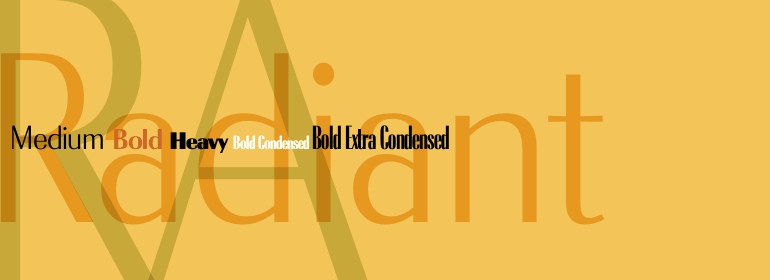
Radiant Font
Radiant Font excels in energy company branding, solar power system marketing, illumination design studios, bright lifestyle magazines, positive psychology centers, vitamin supplement packaging, light therapy clinics, optimistic wellness programs, brilliant diamond jewelry displays, and luminous beauty product campaigns. This brilliant typeface brings radiant energy and luminous positivity to any light-focused design project.
Radiant Font is exciting because it captures the life-giving power and uplifting energy of pure radiance, featuring luminous letterforms that seem to glow with inner light and convey the transformative power of positive energy that brightens everything it touches. Its brilliant character instantly elevates mood, inspires optimism, and celebrates the radiant beauty that emerges when we embrace life's brightest possibilities.
Radiant Font family includes Light, Regular, Medium, Bold, and Black weights with luminous alternates, brilliant flourishes, glowing ornamental elements, and radiant symbols that enhance the bright aesthetic, providing energy designers with brilliant tools for creating typography that radiates positivity and celebrates the transformative power of light and energy.
Wellness energy designers love Radiant Font for its exceptional ability to convey radiant vitality and luminous positivity through brilliantly crafted letterforms. The font's glowing character and energy-focused details create immediate associations with sunshine, positive energy, and the life-enhancing benefits that come from embracing radiant wellness practices and maintaining an optimistic, light-filled approach to daily living.
The design philosophy behind Radiant Font celebrates the transformative power of positive energy and the radiant beauty that emerges when we choose to focus on light, hope, and the brilliant possibilities that exist in every moment, making it particularly effective for wellness brands, energy companies, and lifestyle organizations that promote radiant living. Wellness teams working on positive energy programs find this font essential.
Whether used for solar energy initiatives, wellness transformation programs, or radiant beauty campaigns, Radiant Font delivers the perfect combination of luminous energy and brilliant authenticity. Its glowing appeal and radiant spirit make it an indispensable choice for brands that celebrate positive energy, luminous beauty, and the transformative power of embracing life's most radiant and uplifting possibilities.